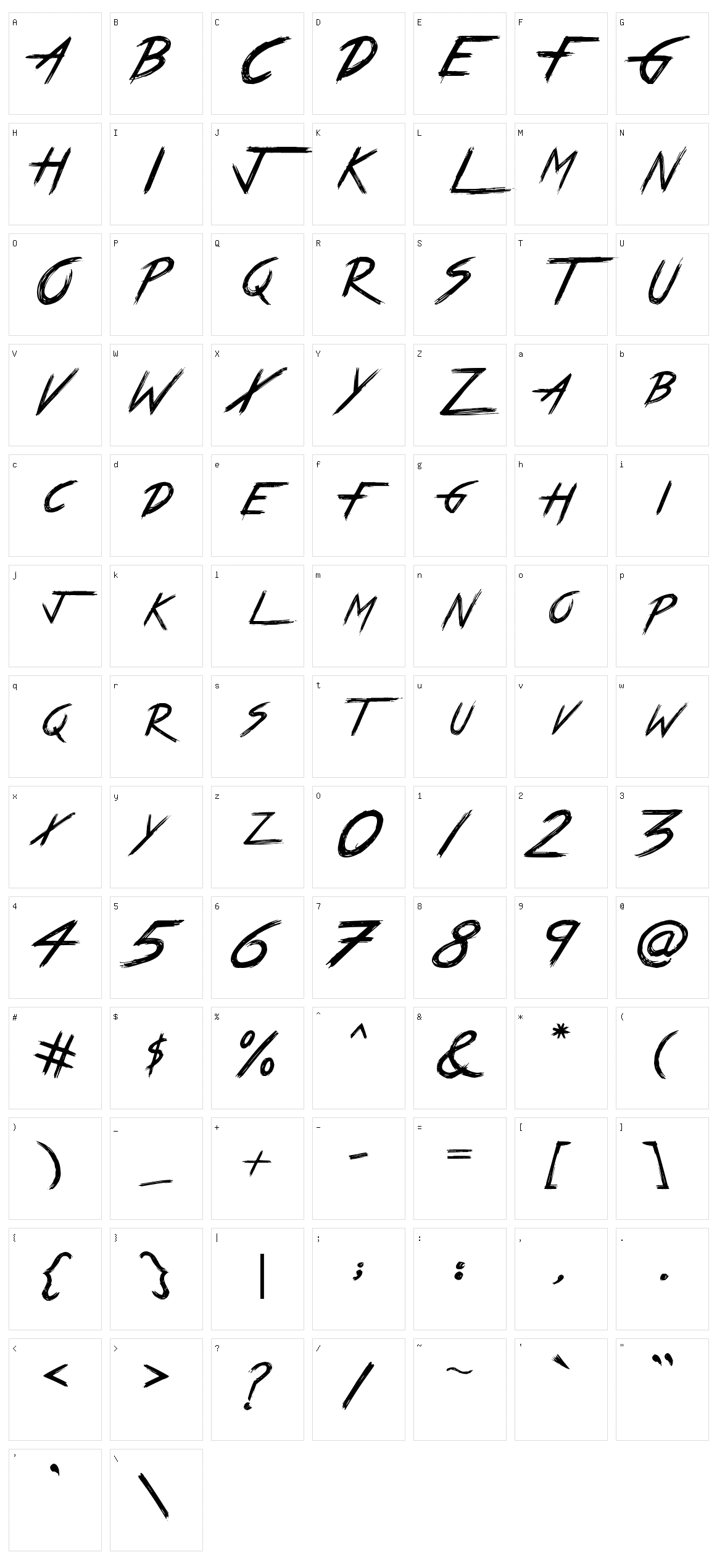
The free font True Lies is carefully designed by JSH creates, showcasing a thoughtful balance of creativity and usability and falls under the Horror font style. When you download the ZIP file, it contains only 208.29 KB of font files, making it lightweight and quick to download. Please review the license details below to understand permitted usage and distribution rights. If license information is not available, we recommend using this font for personal projects only or contacting the author directly for commercial usage permissions.